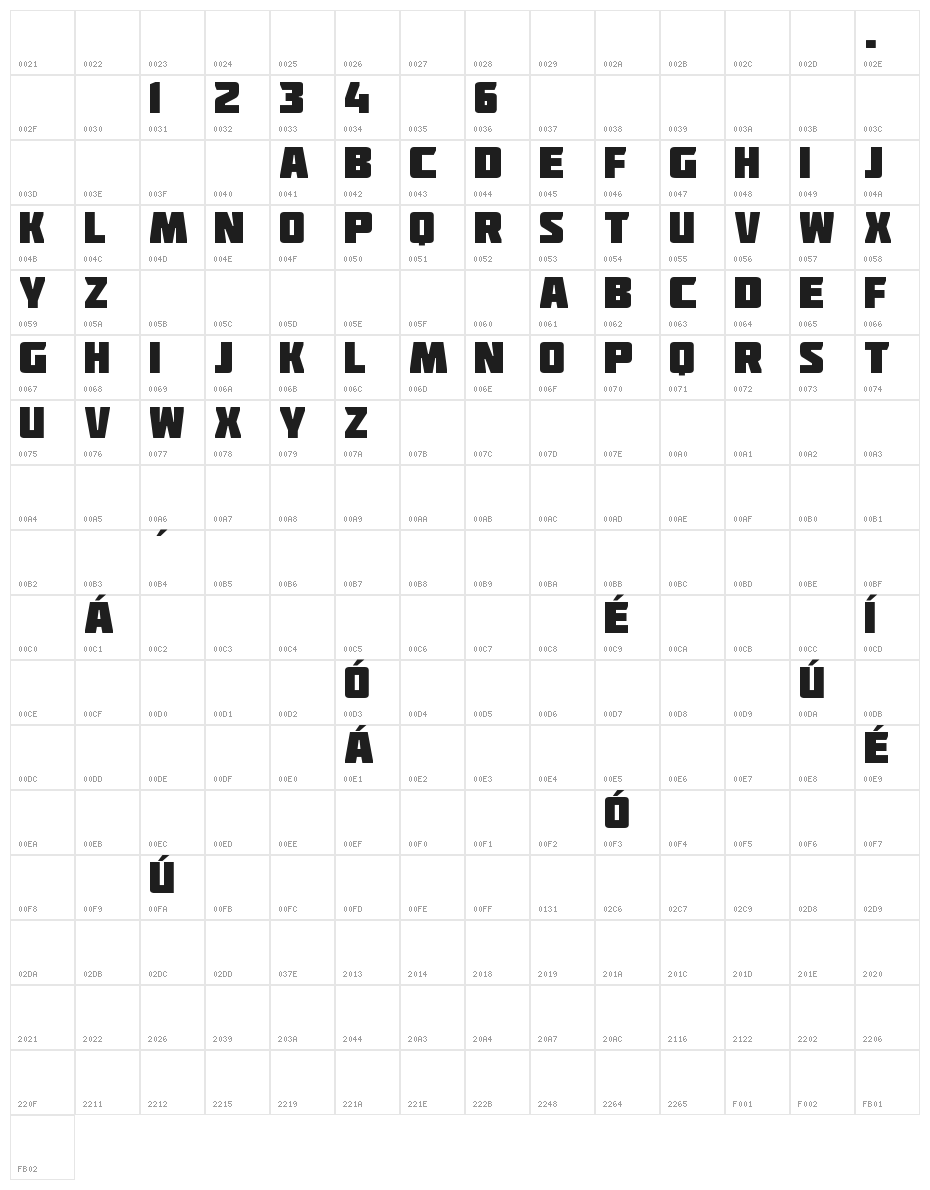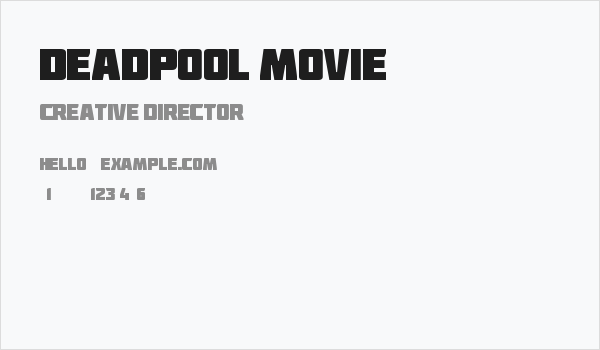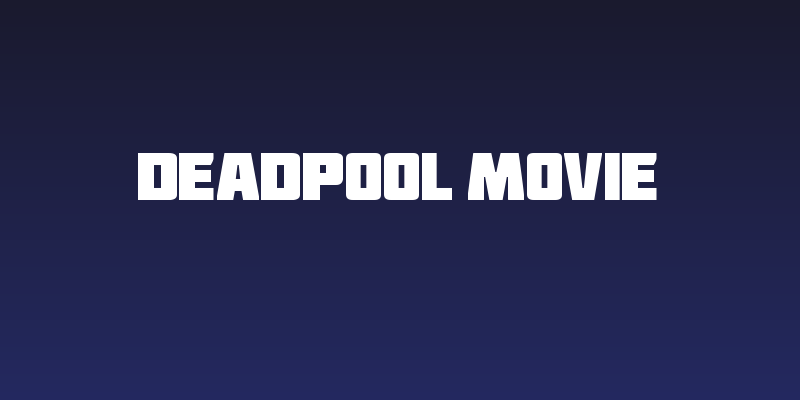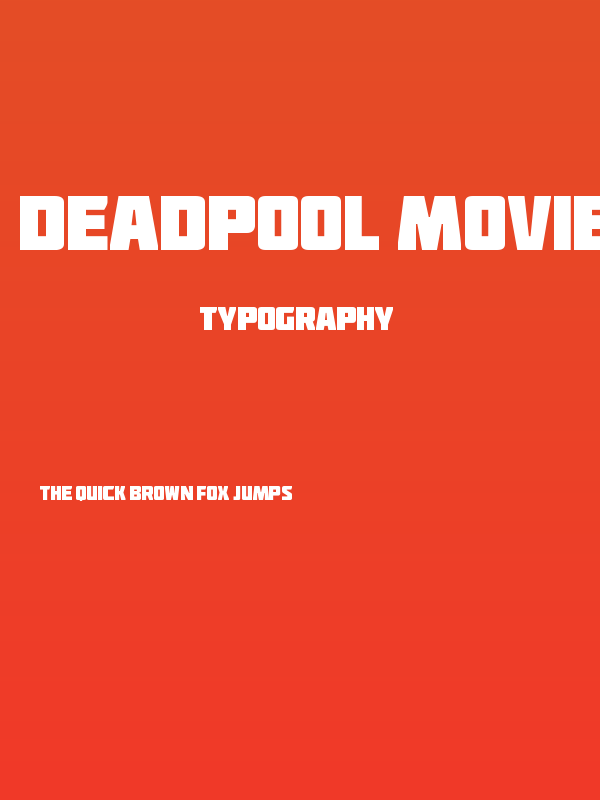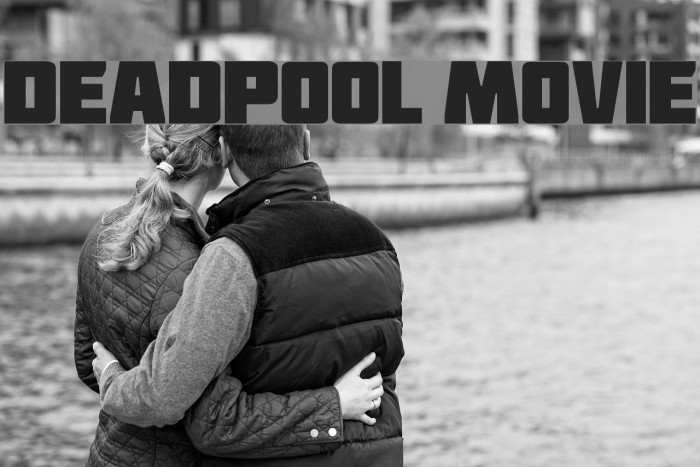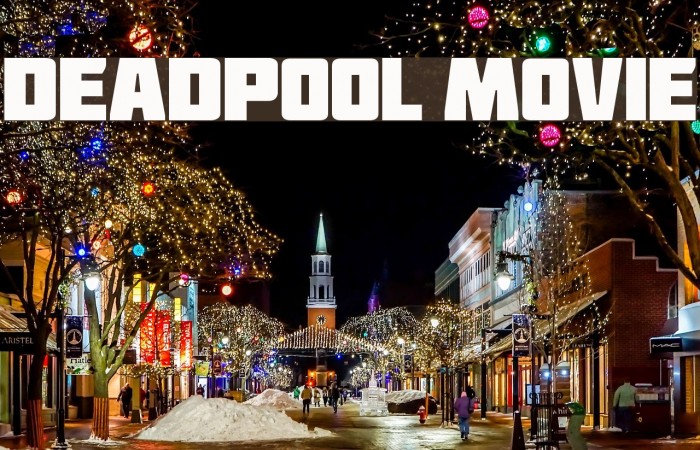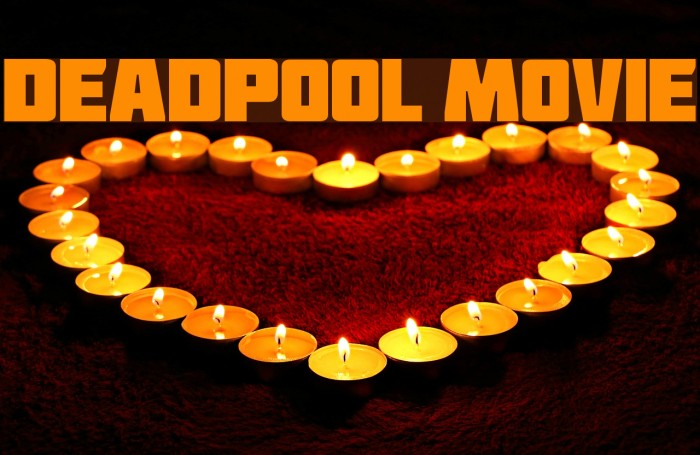
Deadpool Movie Font
Deadpool Movie Description
This bold and impactful font features a strong, geometric design with thick, uniform strokes that create a commanding presence. The characters are blocky and robust, with a slightly condensed appearance that enhances their boldness. The uppercase letters are particularly striking, with a uniform height and width that contribute to a cohesive look. The numbers are equally bold, maintaining the strong geometric style. This font lacks any decorative elements, focusing instead on a clean, powerful aesthetic that is both modern and assertive. The absence of lowercase letters and special characters suggests a focus on simplicity and clarity.
| Proposed Projects | Ideal for movie posters, video game titles, branding, and any project requiring a bold, impactful typeface. |